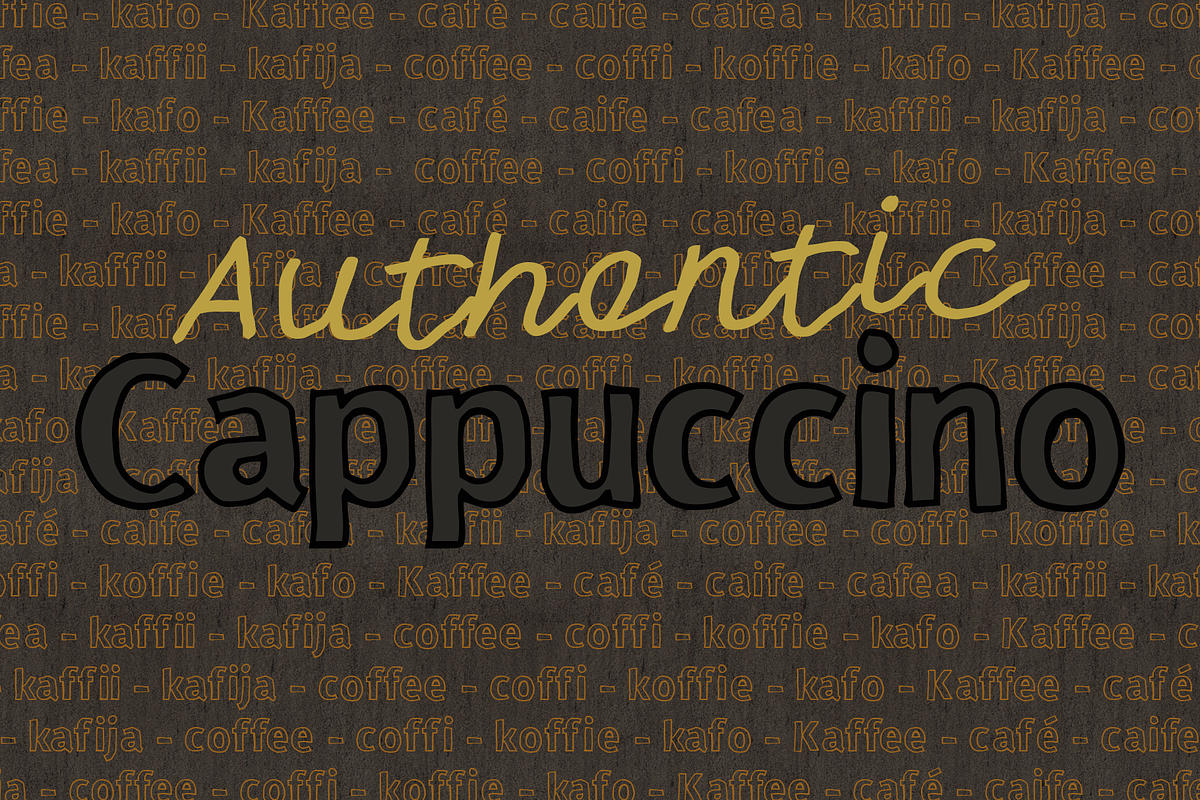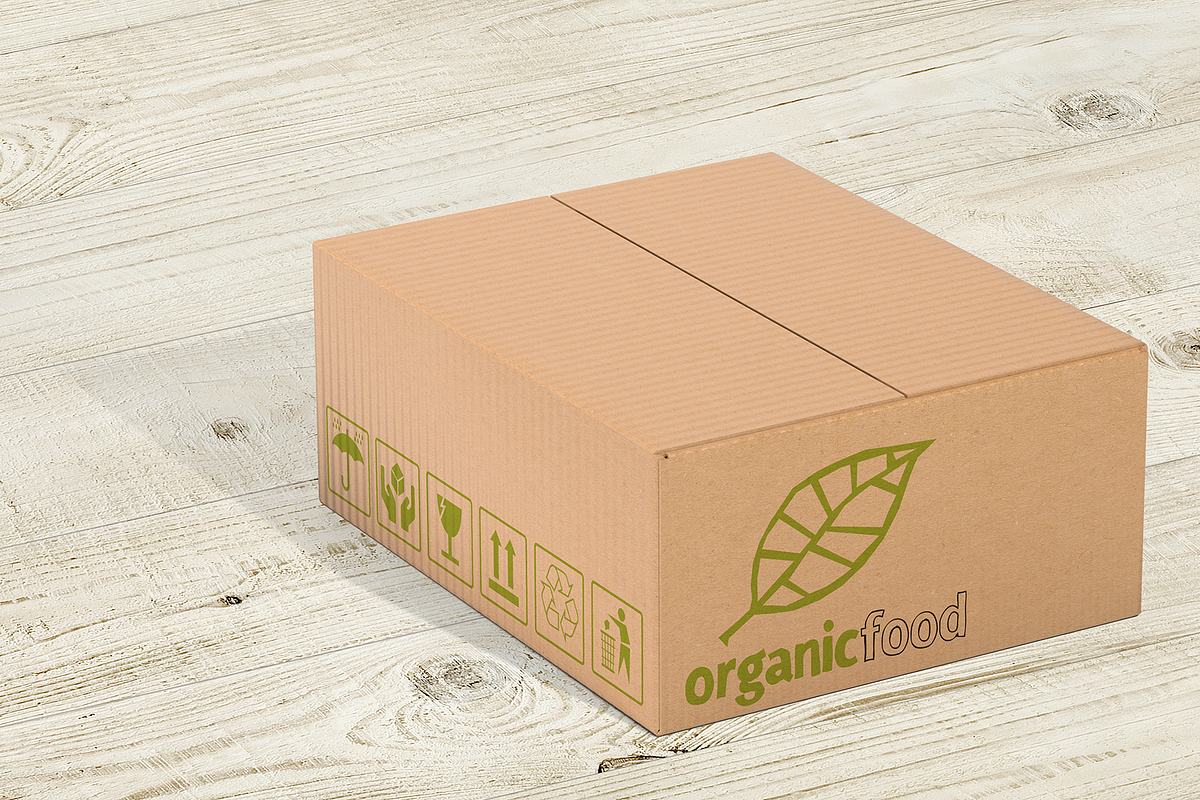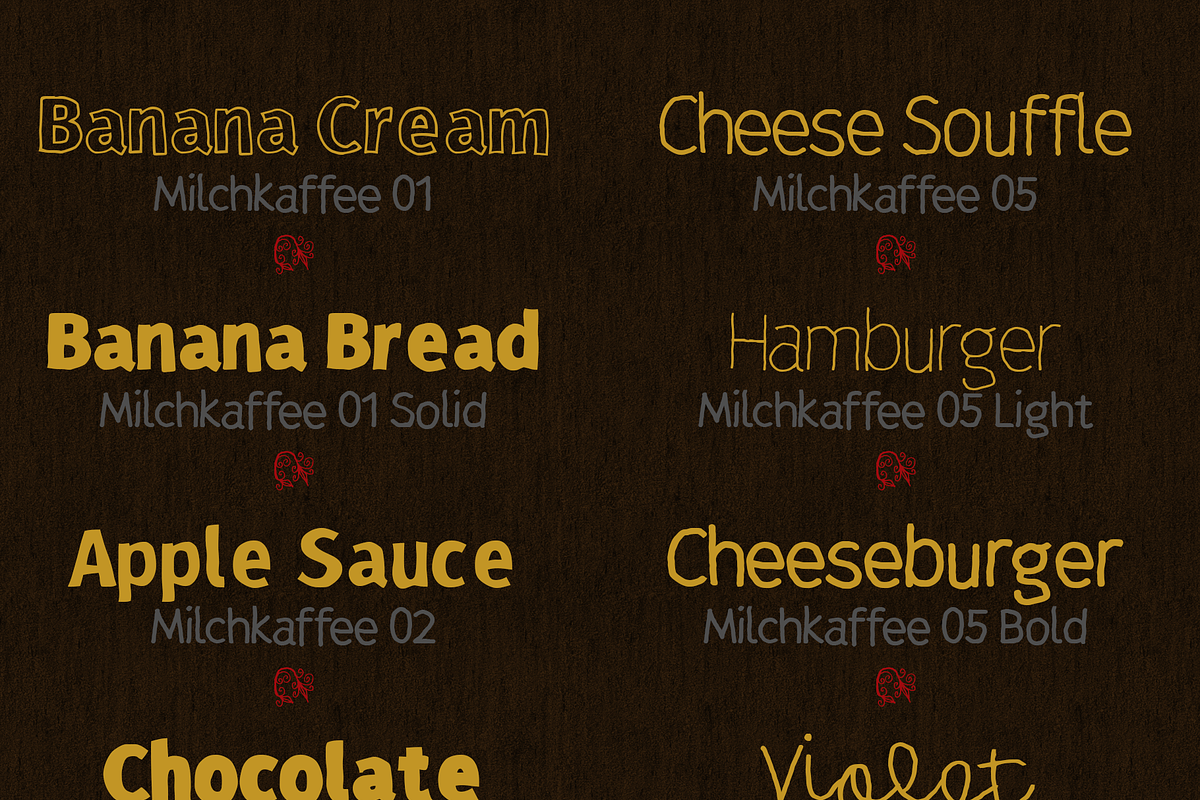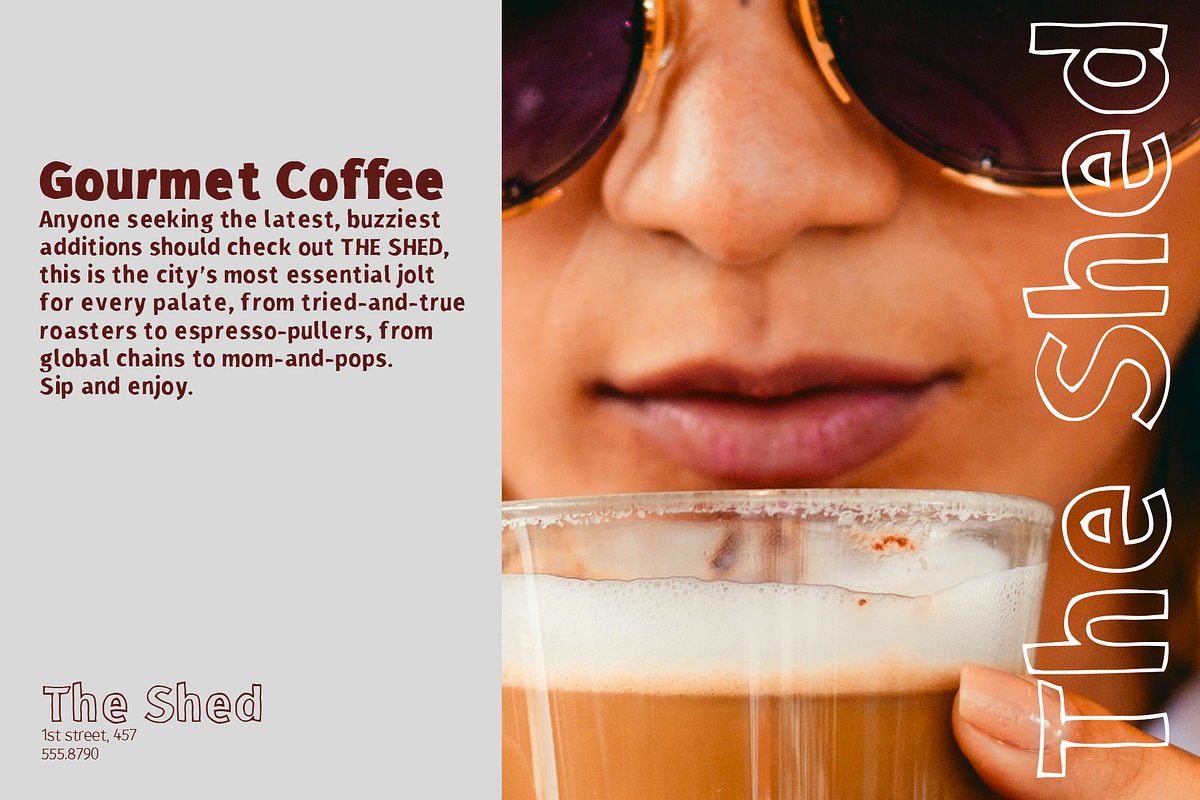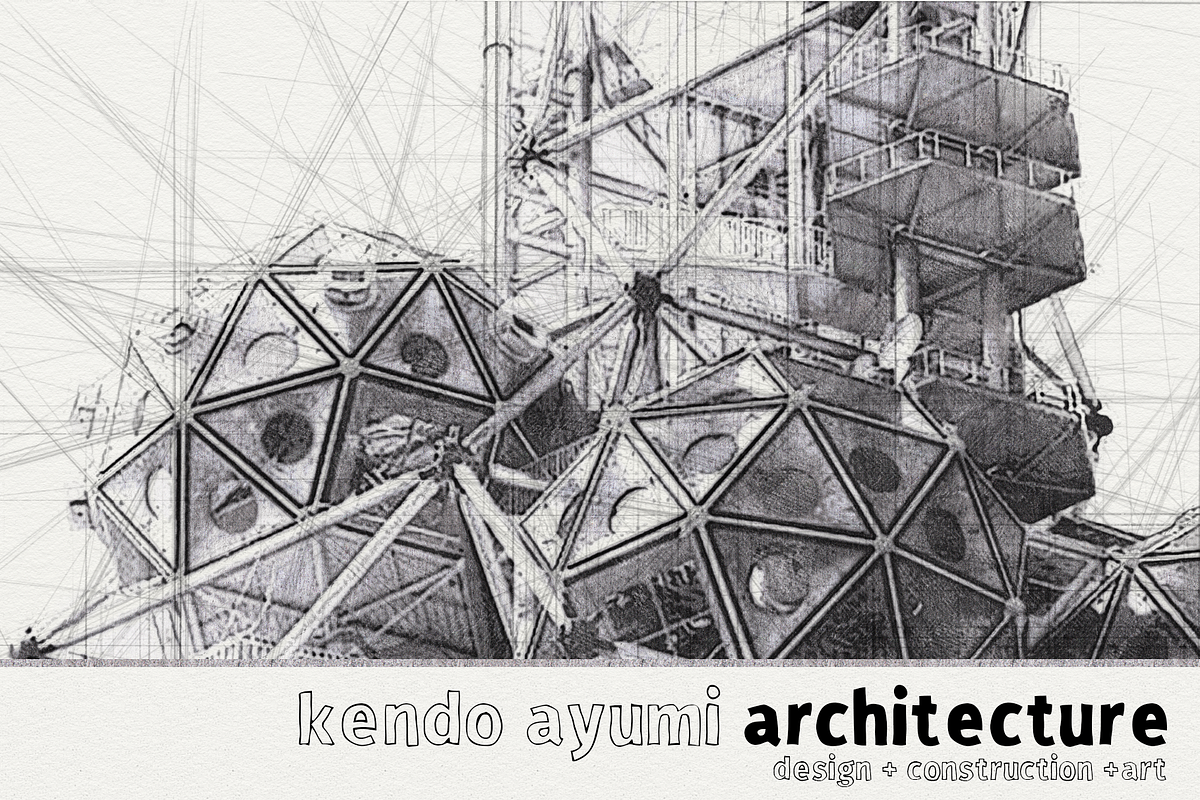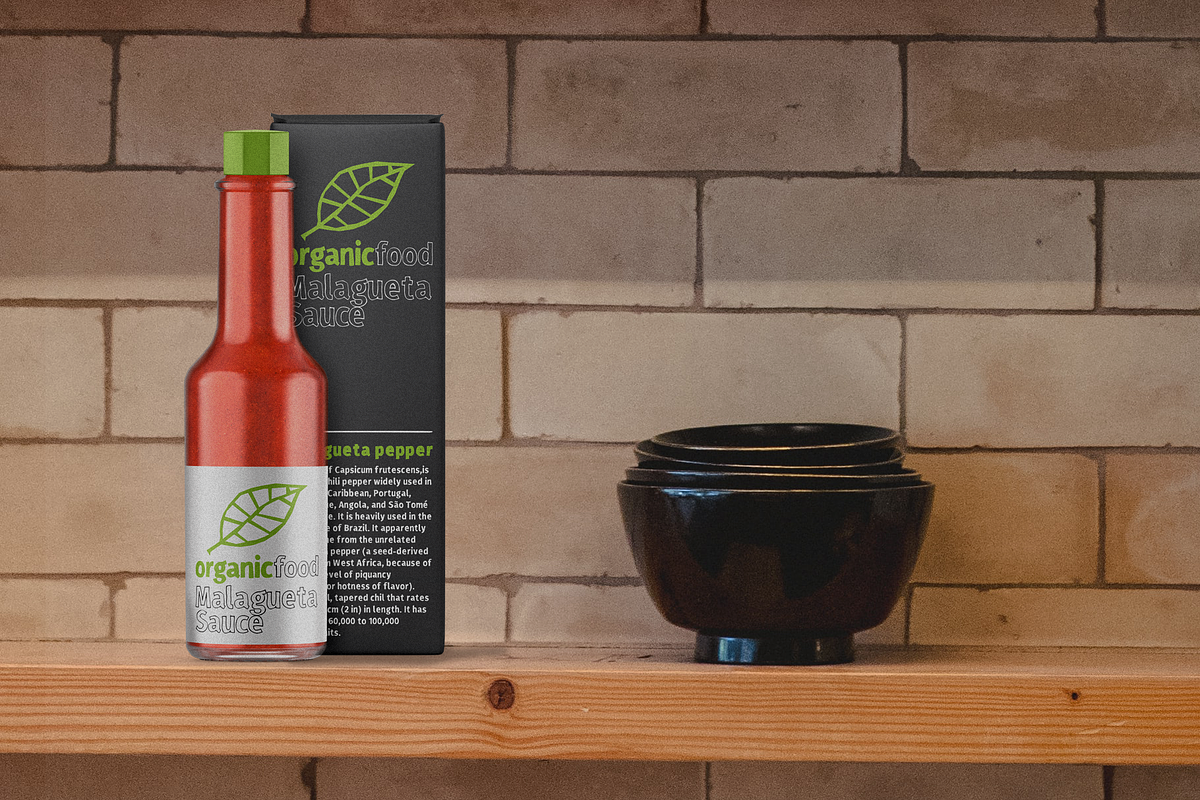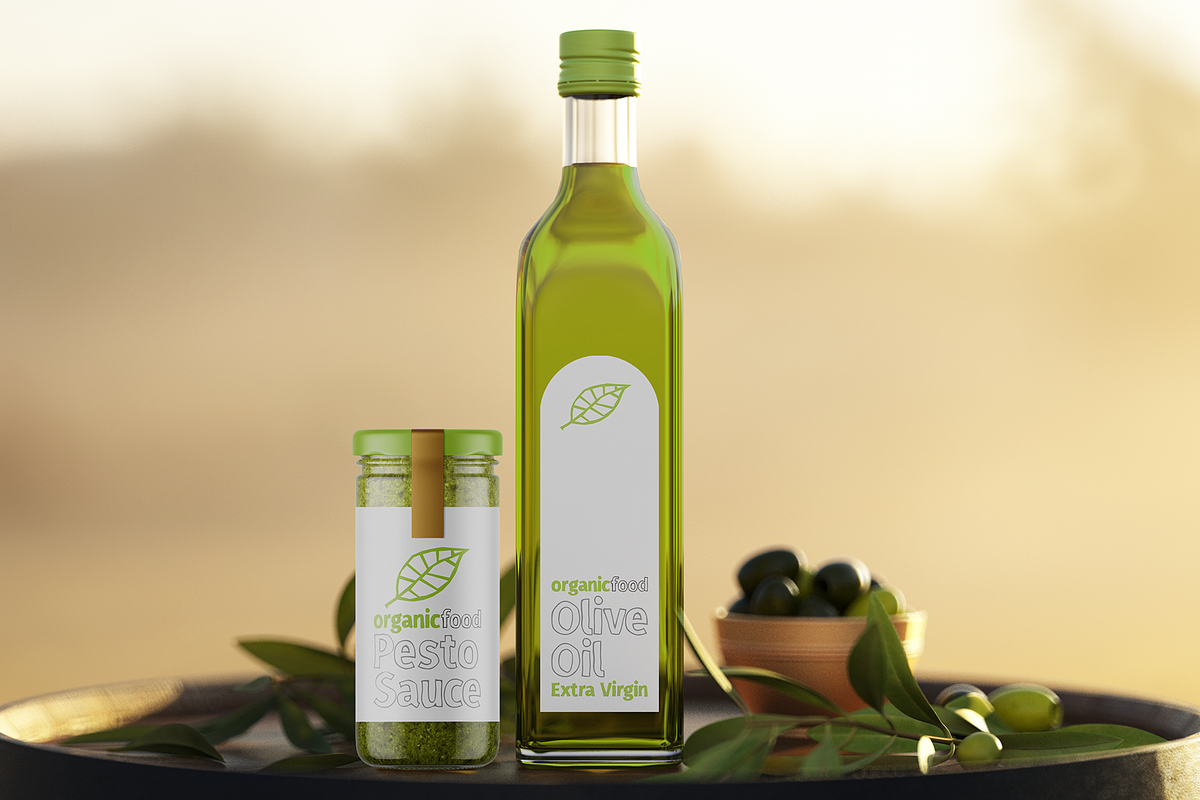
Milchkaffee Megafamily Font
Milchkaffee is a megafamily of hand drawn fonts. Sans serif, monoline, outlined or script; all share metrics and style, so they can be used together.
So relax, get a cup of cappuccino or a latte and enjoy designing with Milchkaffee. There are 14 fonts on this family and you got two extra symbol fonts: